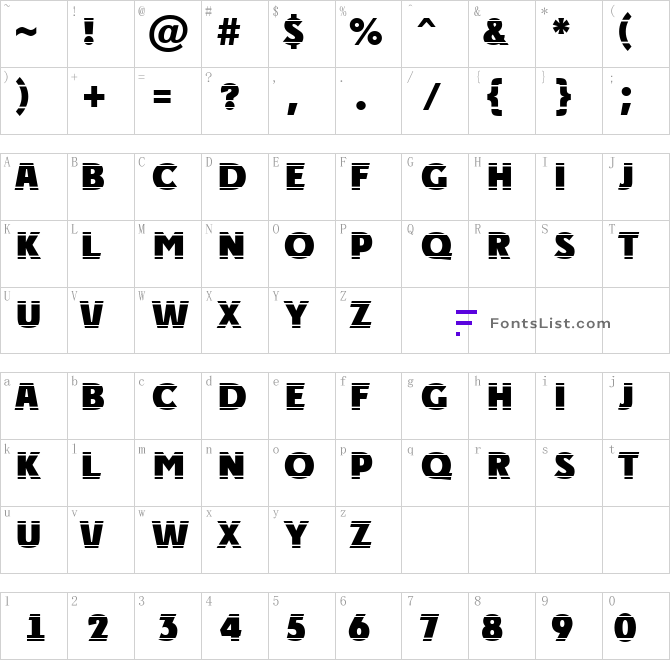
- Font Name:a_PlakatTitulHlStr
a_PlakatTitulHlStr-ExtraBold.ttf is a very beautiful artistic font, a_PlakatTitulHlStr-ExtraBold.ttf is widely used in the design and printing of various books and pictures,a_PlakatTitulHlStr-ExtraBold.ttf has a strong visual impact,a_PlakatTitulHlStr-ExtraBold.ttf is a commonly used font in newspapers, magazines and books, and is used in posters, e-commerce Poster design, store design, logo design, font design and other fields.a_PlakatTitulHlStr-ExtraBold.